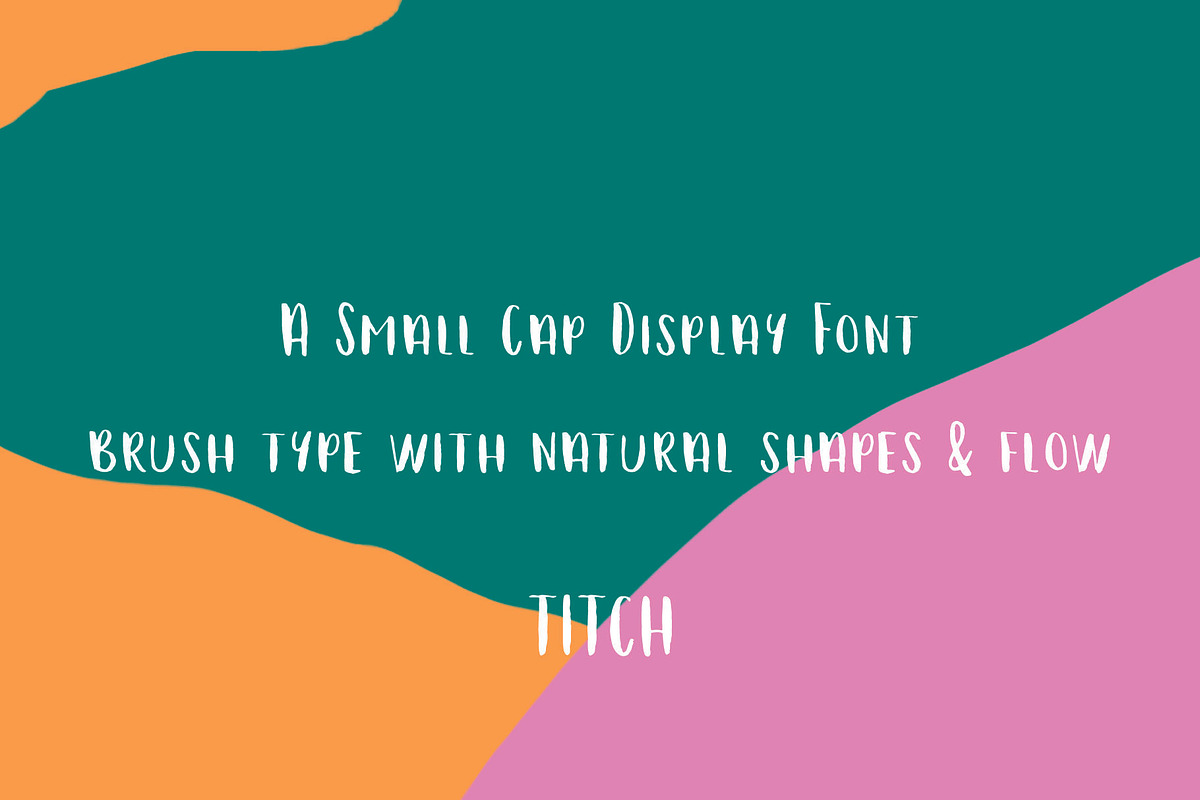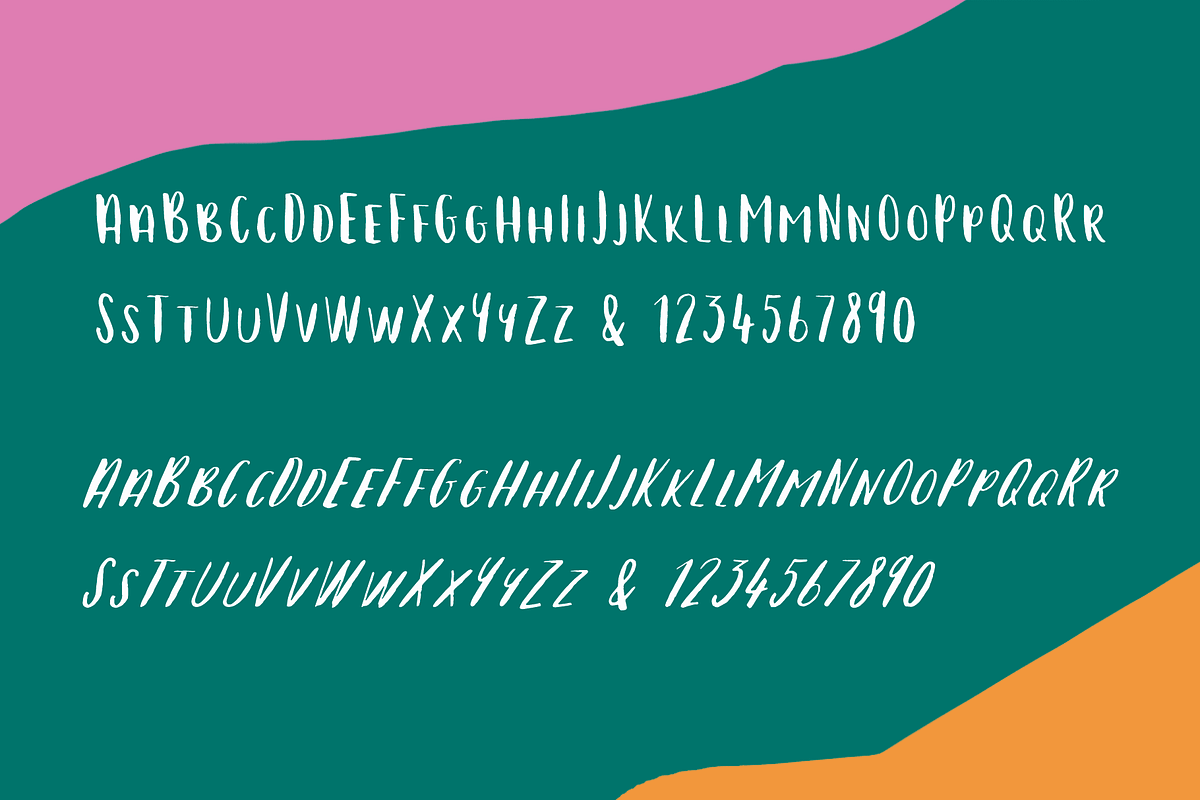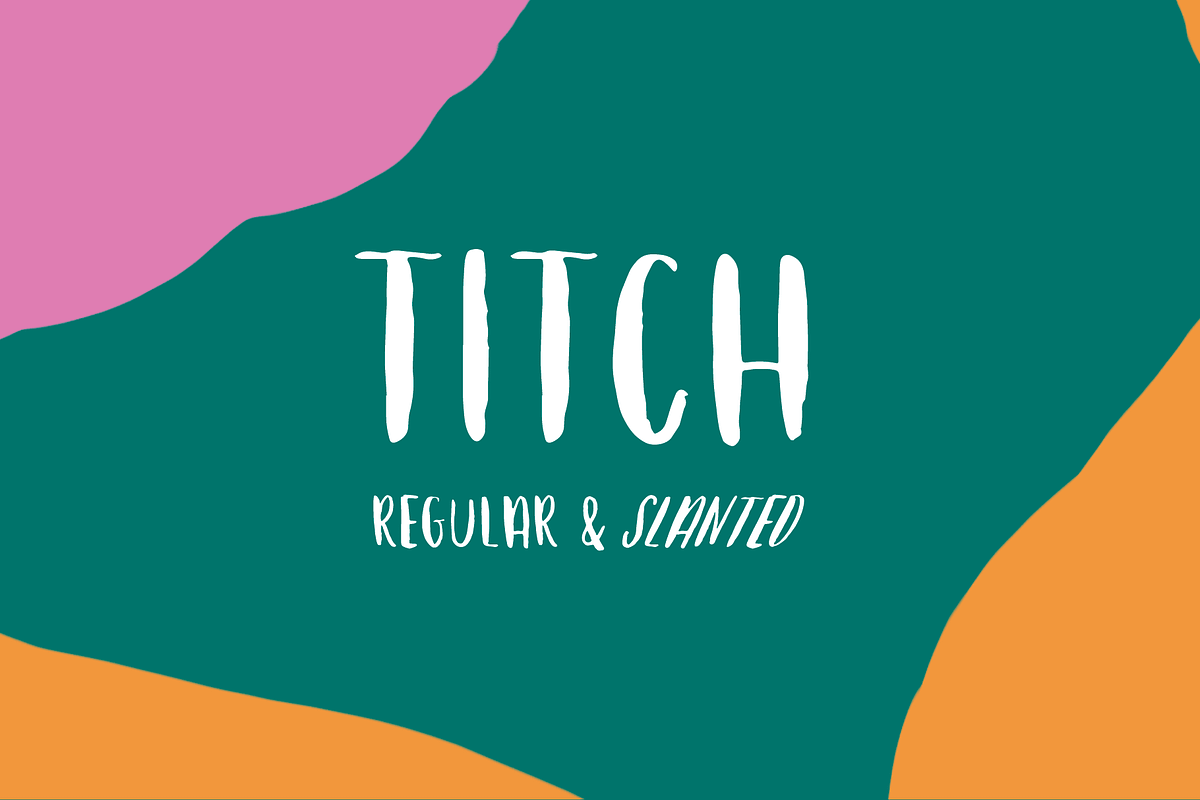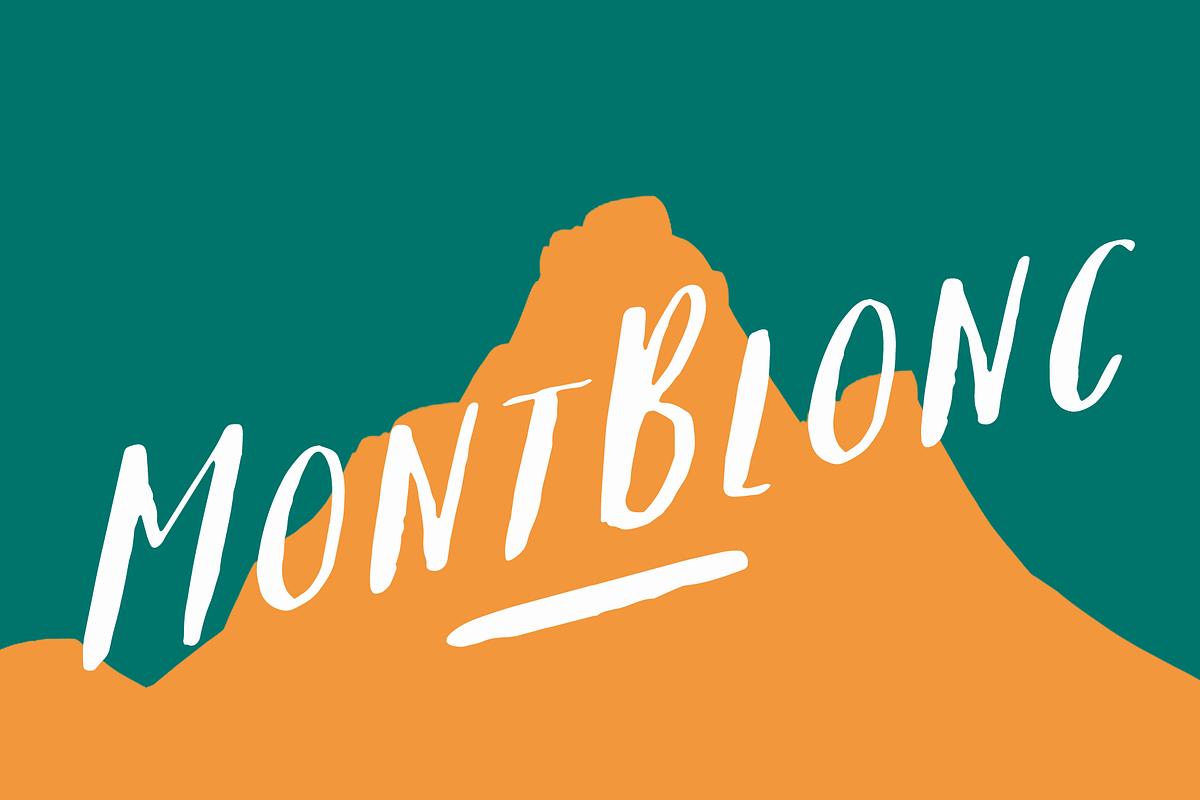
Brush lettering font - greetings cards
Introducing Titch by We are colt
Titch - a small amount
Titch is a brush font, original glyphs drawn with a tombow brush pen.
Special care has been taken to retain the individual characteristics of each glyph making Titch a beautifully unique display font.
Titch is a small caps font available in both regular and slanted variations. This fun and versatile display font will add a hand made feel to your next packaging design or greetings card.
Small capital letters
And a beautiful ampersand